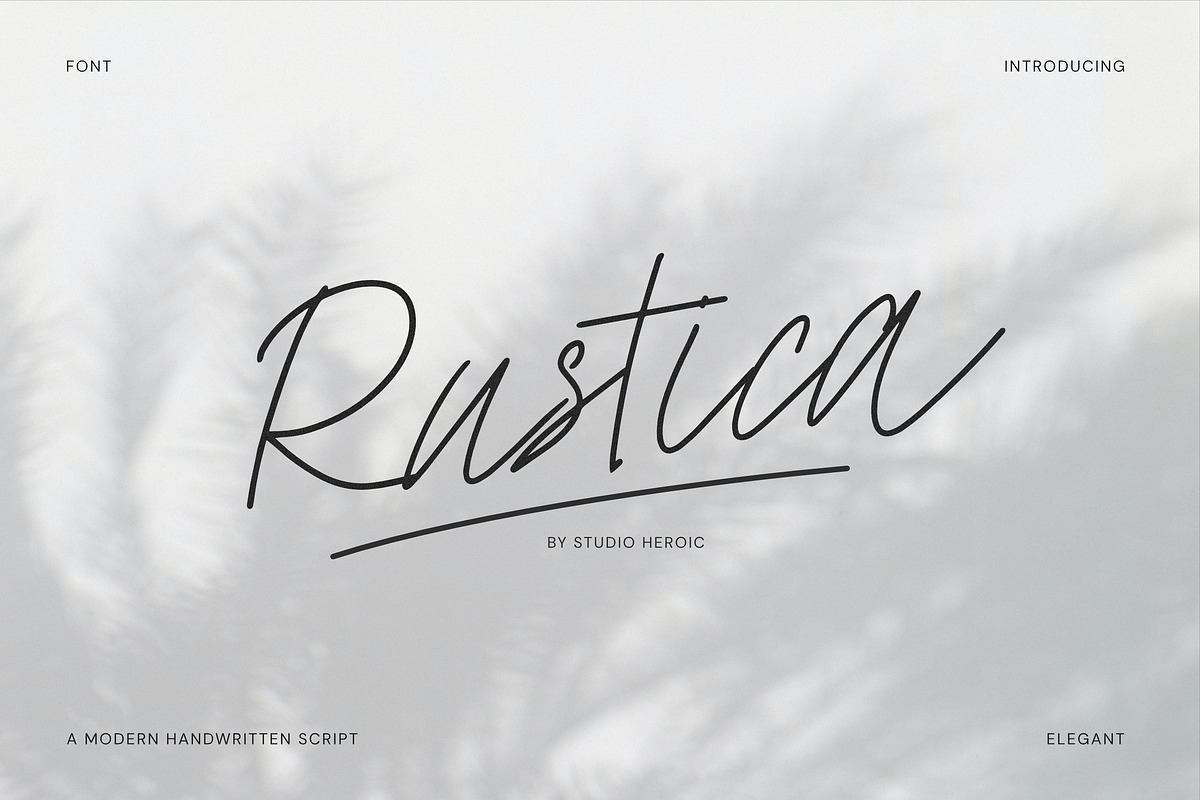
Rustica - Elegant Script Font Free Download
Rustica - Elegant Script Font Free Download is a graceful and sophisticated typeface that captures the beauty of hand-drawn calligraphy. With its flowing strokes, refined curves, and timeless charm, Rustica is perfect for wedding invitations, high-end branding, feminine logos, stationery, and luxury packaging.
This elegant script font brings a romantic and artistic flair to your design projects, making each word feel personal and expressive. Whether you're crafting a delicate signature logo or a stylish social media graphic, Rustica adds class and emotion with every line.